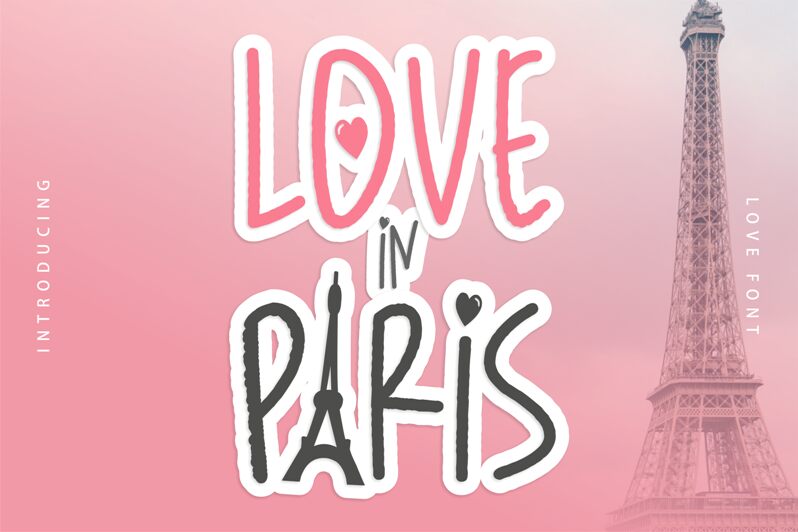
Love in Paris
Love in Paris is a handwritten font on the theme of love designed by arukidz.fl. This thin, tall font with a handwritten style, has lots of alternative ligatures to really look like your own handwriting. Also accompanied by several icons that are synonymous with the name, Love in Paris. Perfect for your creative projects this season.